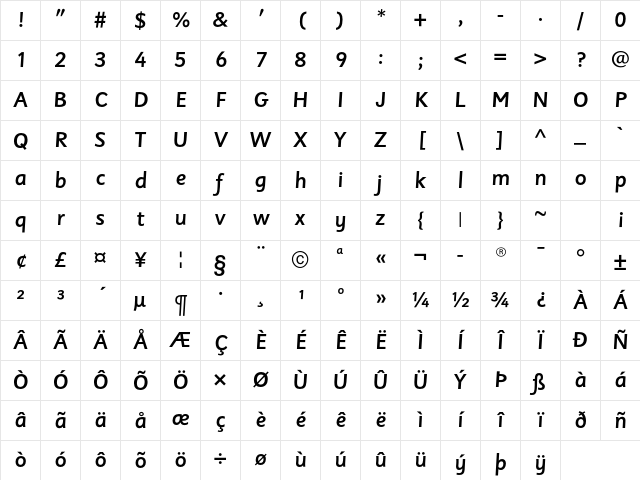
Sassoon Sans Slope Std Medium
Design Context for Sassoon Sans Slope Std
Sassoon Sans Slope Std is a composed and adaptable typeface that performs quietly and consistently across a wide range of design contexts.